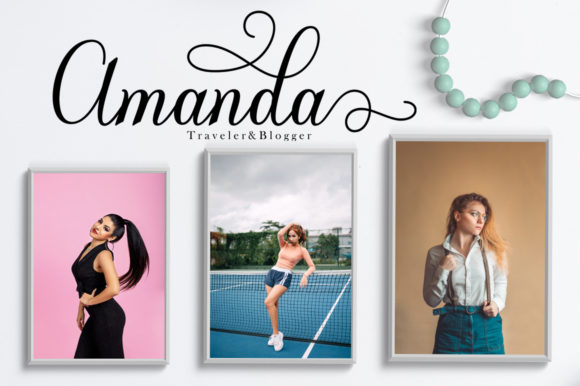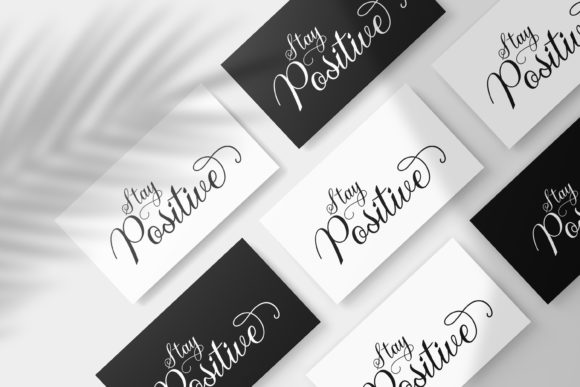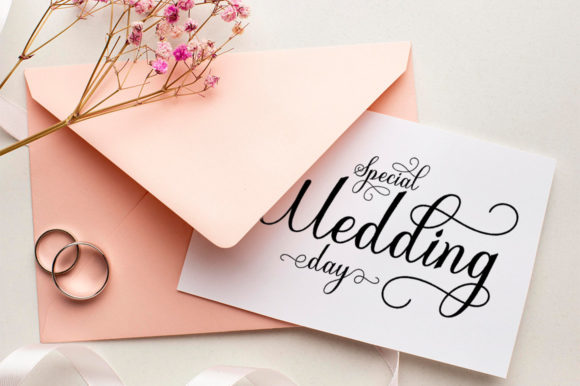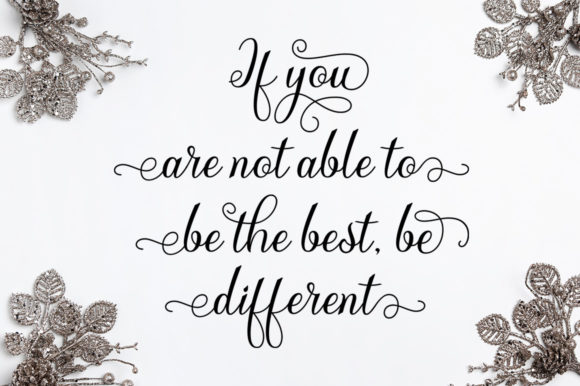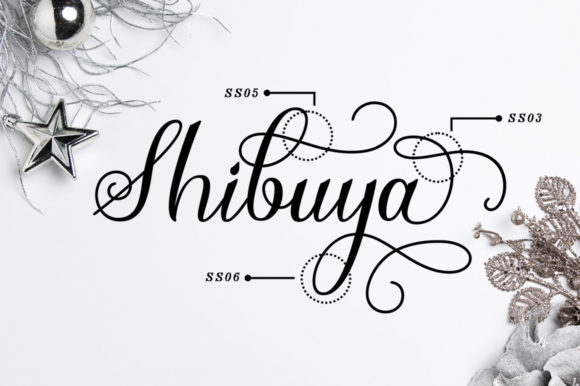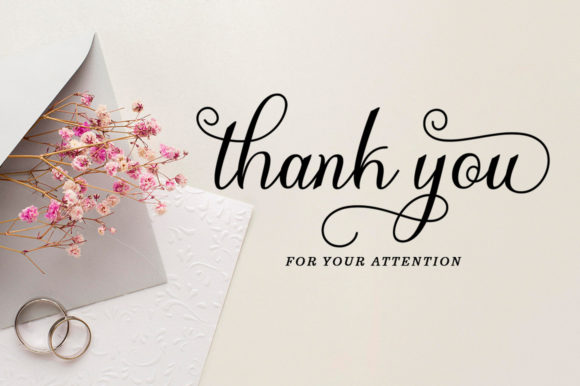
Introducing Gabriella Font: The Epitome of Romantic Elegance
Are you a designer or crafter looking to add a touch of luxury and sophistication to your projects? Look no further than the Gabriella font, a stunning calligraphy typeface that exudes romance and sweetness. With its unique characters that dance along the baseline, Gabriella is sure to elevate your designs to new heights.
What Makes Gabriella Font So Special?
Gabriella font is a masterclass in elegant calligraphy, with each character carefully crafted to create a sense of movement and fluidity. The result is a font that is both beautiful and highly legible, making it perfect for a wide range of design applications. Whether you’re creating wedding invitations, branding materials, or digital content, Gabriella font is sure to add a touch of luxury and sophistication.
Key Features of Gabriella Font
- Romantic and Sweet Calligraphy: Gabriella font is a true masterpiece of calligraphy, with each character imbued with a sense of romance and sweetness.
- Characters that Dance Along the Baseline: The unique characters in Gabriella font are designed to dance along the baseline, creating a sense of movement and fluidity.
- Luxury Spark: With Gabriella font, you can add a touch of luxury and sophistication to any design project.
- PUA Encoded: Gabriella font is PUA encoded, making it easy to access all of the amazing glyphs and ligatures.
Benefits of Using Gabriella Font
So why choose Gabriella font for your design projects? Here are just a few benefits of using this stunning calligraphy typeface:
- Elegance and Sophistication: Gabriella font adds a touch of elegance and sophistication to any design project.
- Versatility: With its unique characters and ligatures, Gabriella font can be used for a wide range of design applications.
- Easy to Use: Gabriella font is PUA encoded, making it easy to access all of the amazing glyphs and ligatures.
- Highly Legible: Despite its elegant nature, Gabriella font is highly legible, making it perfect for body text and headings.
Design Applications for Gabriella Font
So what design applications are best suited to Gabriella font? Here are just a few ideas to get you started:
- Wedding Invitations: Gabriella font is perfect for wedding invitations, adding a touch of romance and elegance to your designs.
- Branding Materials: With its luxurious feel, Gabriella font is ideal for branding materials, such as logos and business cards.
- Digital Content: Gabriella font can also be used for digital content, such as social media graphics and blog posts.
- Stationery: Gabriella font is perfect for creating elegant stationery, such as letterheads and thank you cards.
Tips for Using Gabriella Font
Here are a few tips for using Gabriella font in your design projects:
- Use it Sparingly: While Gabriella font is beautiful, it can be overwhelming if used too much. Use it sparingly to add a touch of elegance to your designs.
- Experiment with Ligatures: Gabriella font comes with a range of ligatures and glyphs. Experiment with these to add visual interest to your designs.
- Pair it with Other Fonts: Gabriella font pairs well with other fonts, such as sans serif fonts. Experiment with different pairings to find the perfect combination.